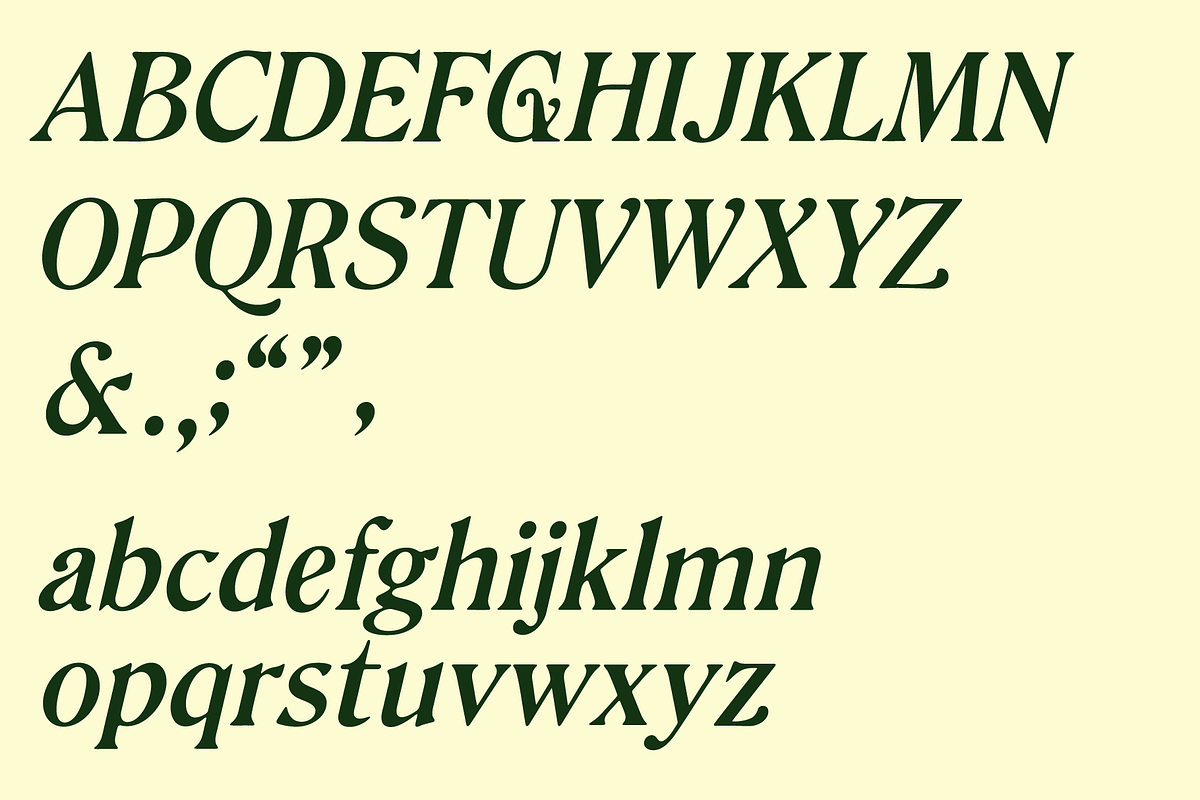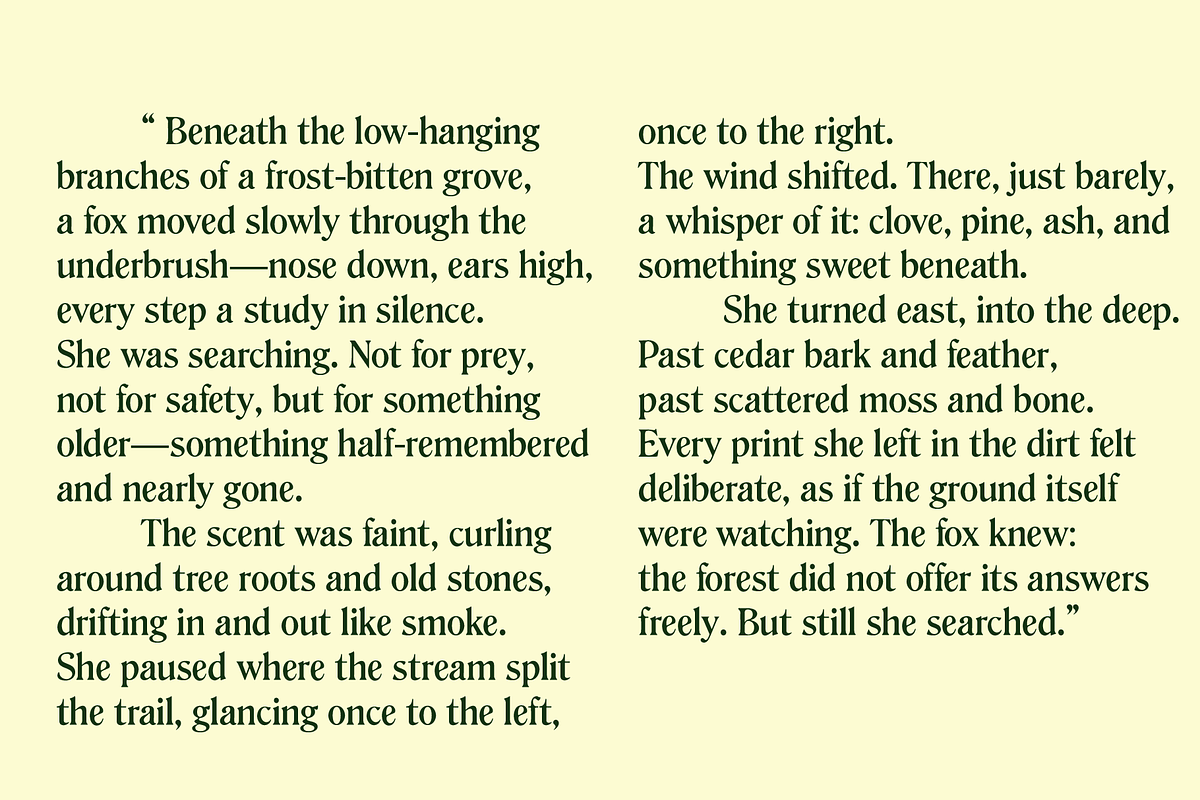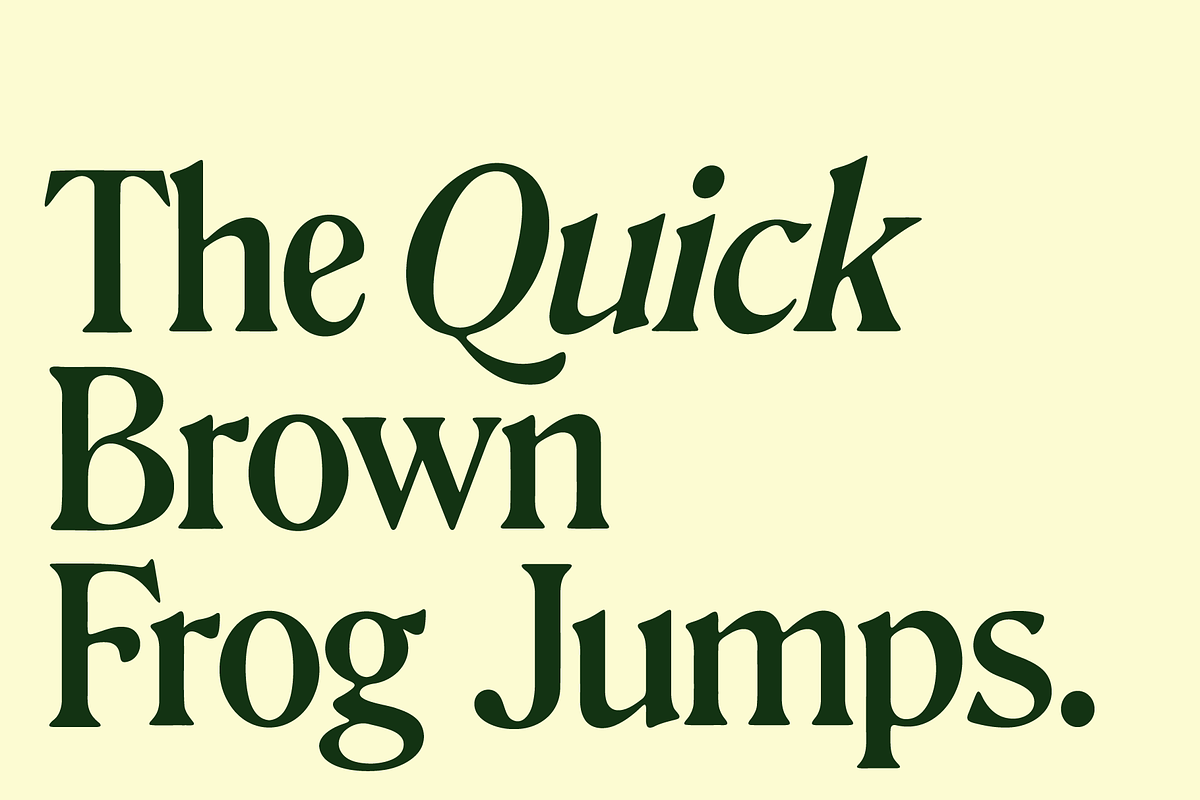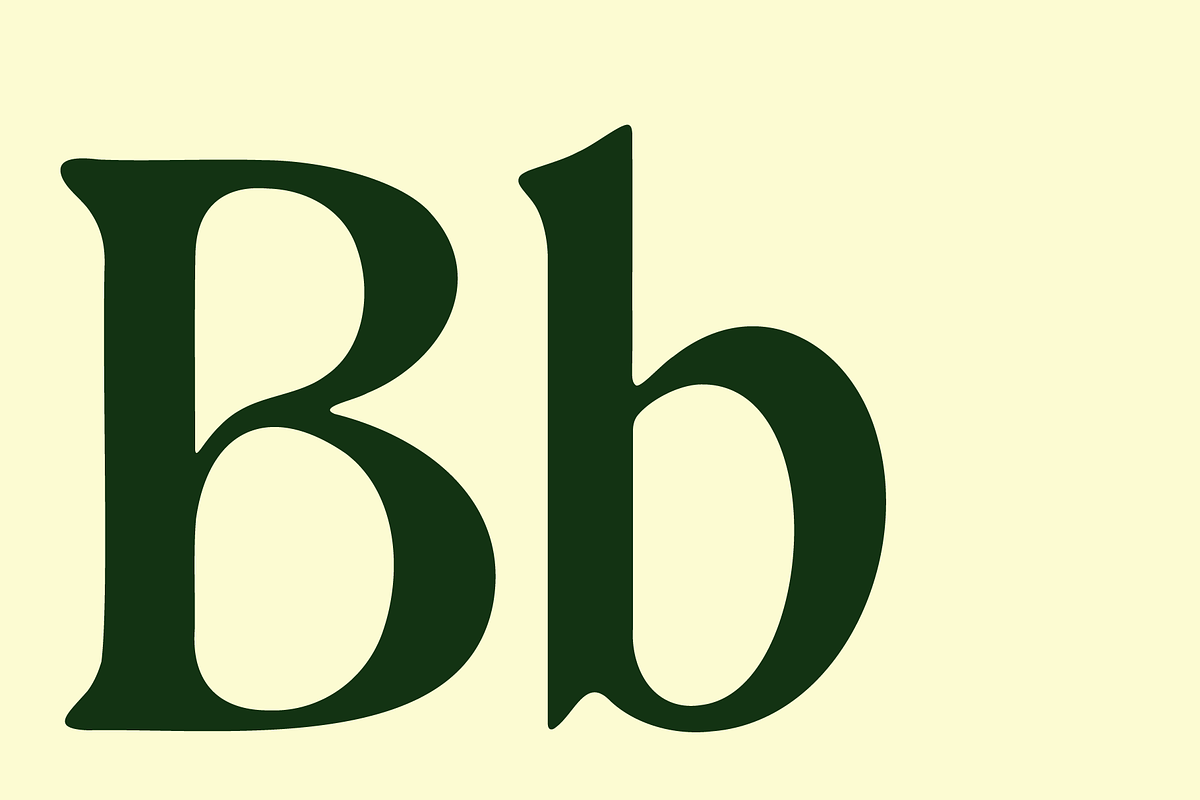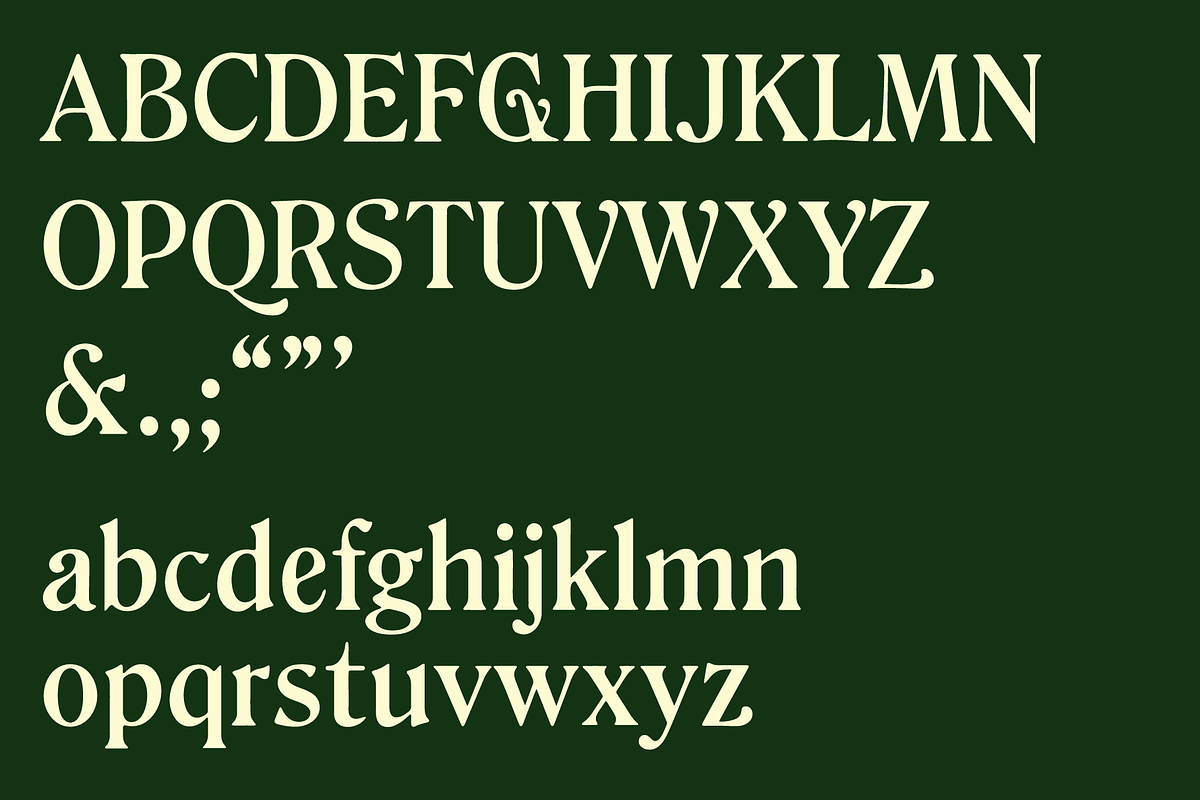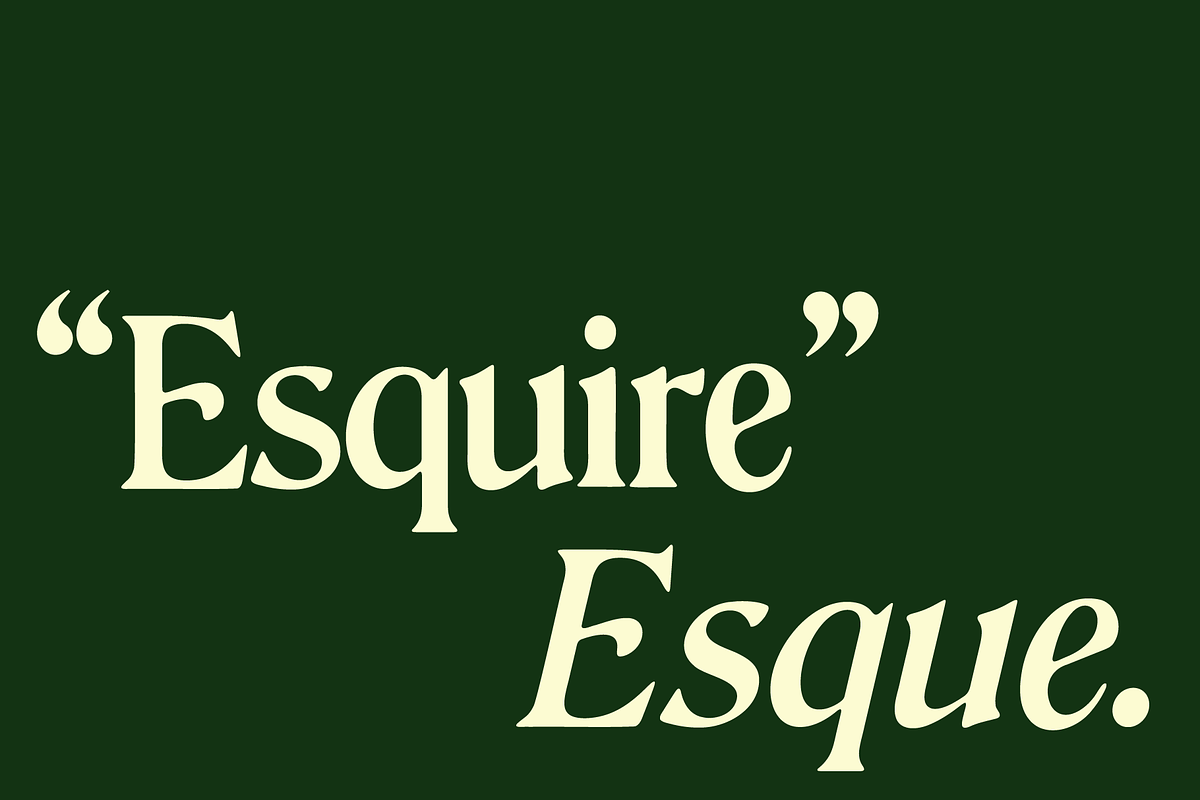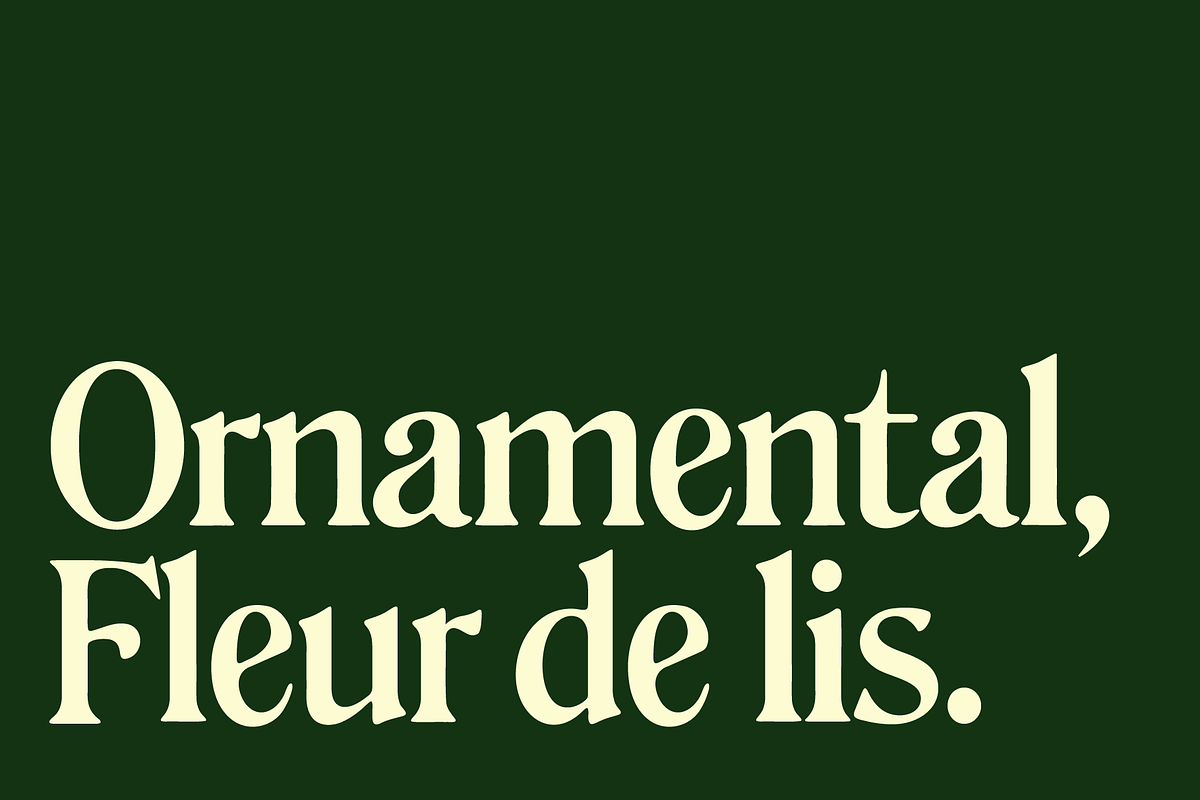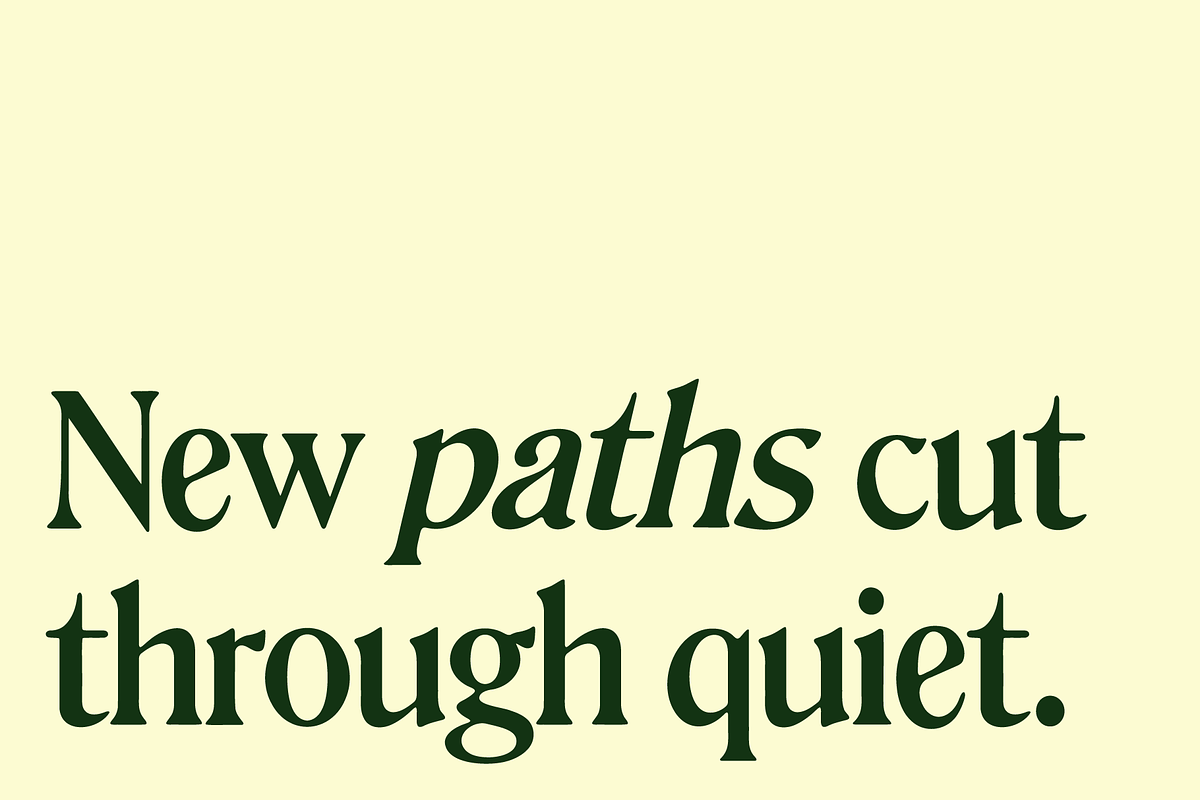
Gertrude - An Ornamental Serif
Gertrude is a stately serif with quiet flair. Rooted in traditional letterforms but shaped by contemporary nuance, Gertrude blends classic proportions with subtle ornamental details—perfect for editorial headlines, book covers, packaging, and branding that calls for elegance without excess.
Available in Roman and Italic styles, each with carefully drawn alternates and thoughtful rhythm, Gertrude brings a sense of heritage and intention to modern design.
Full A–Z uppercase & lowercase
Numbers, punctuation, symbols